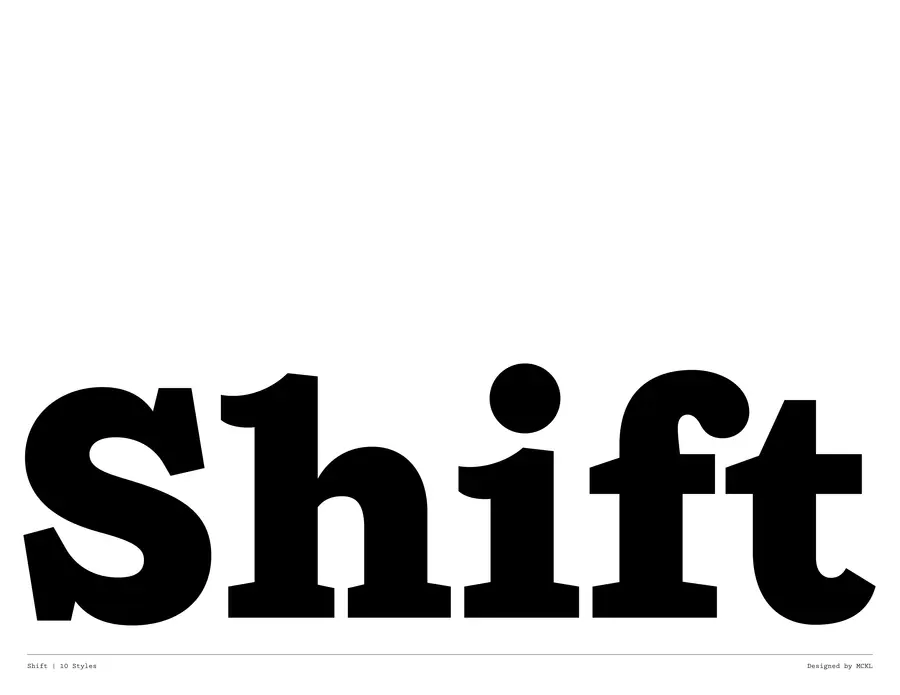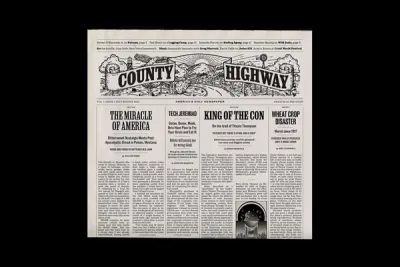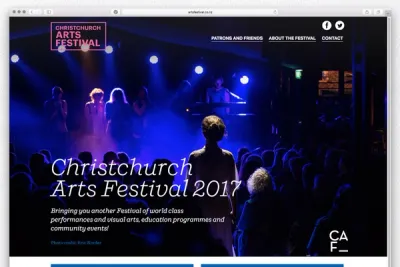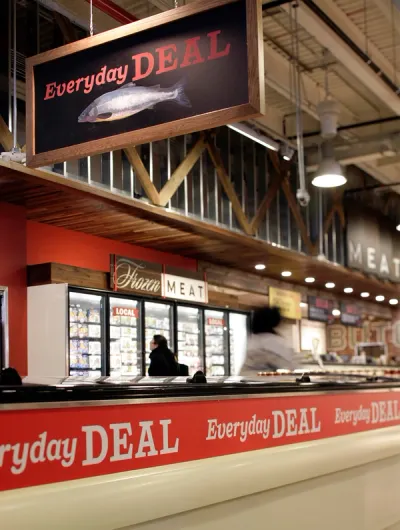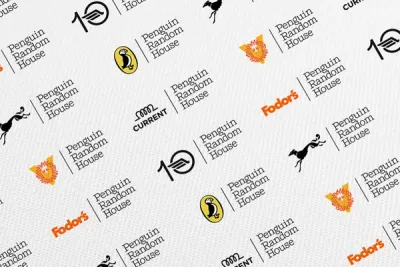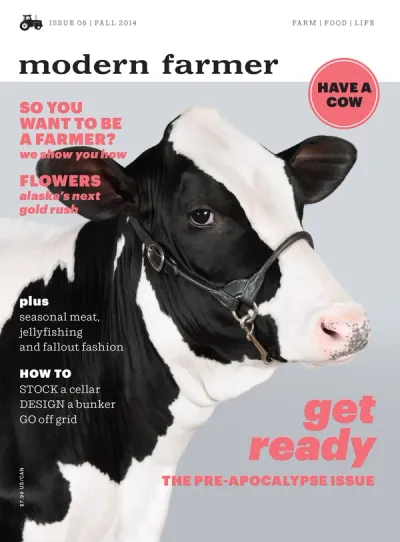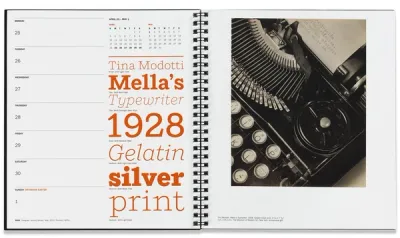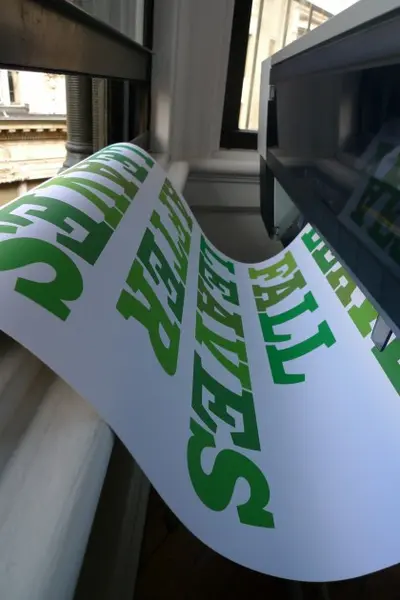
Shift
- Designed by Jeremy Mickel
Shift is inspired by American slab-serifs from the late 19th century, particularly Franklin Circular, from A.D. Farmer & Sons. In its lighter weights, it takes on the personality of a typewriter face, with flared terminals and prominent serifs. In the heavier weights, it acts as a titling Egyptian, with thin spaces between characters and small counters.